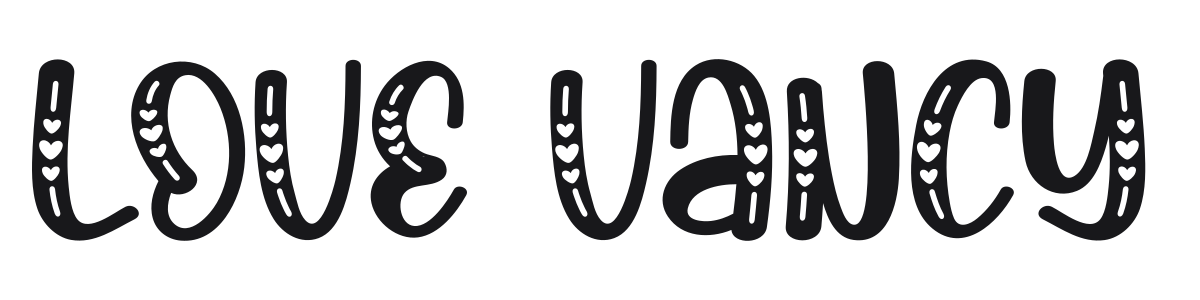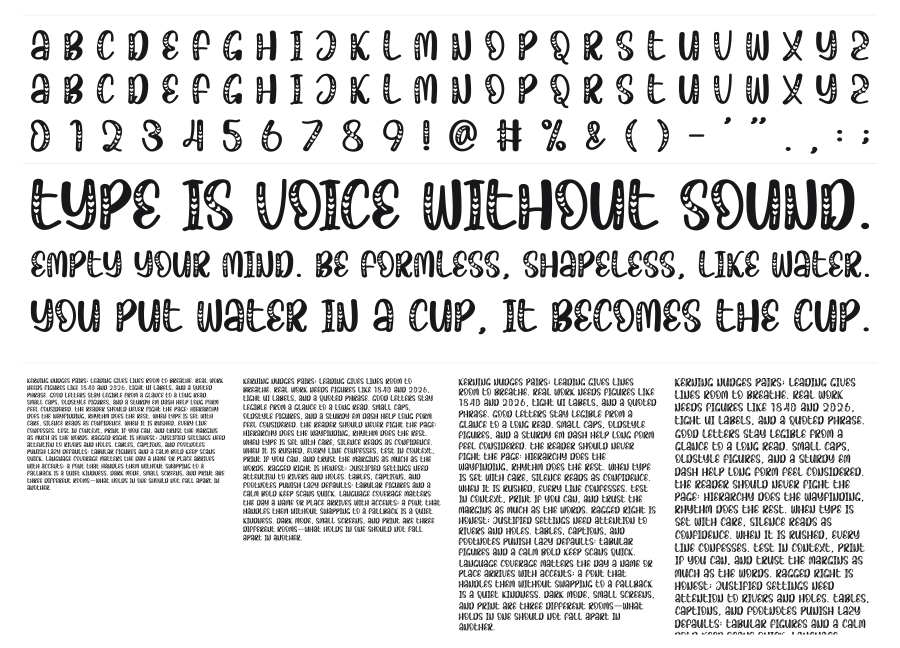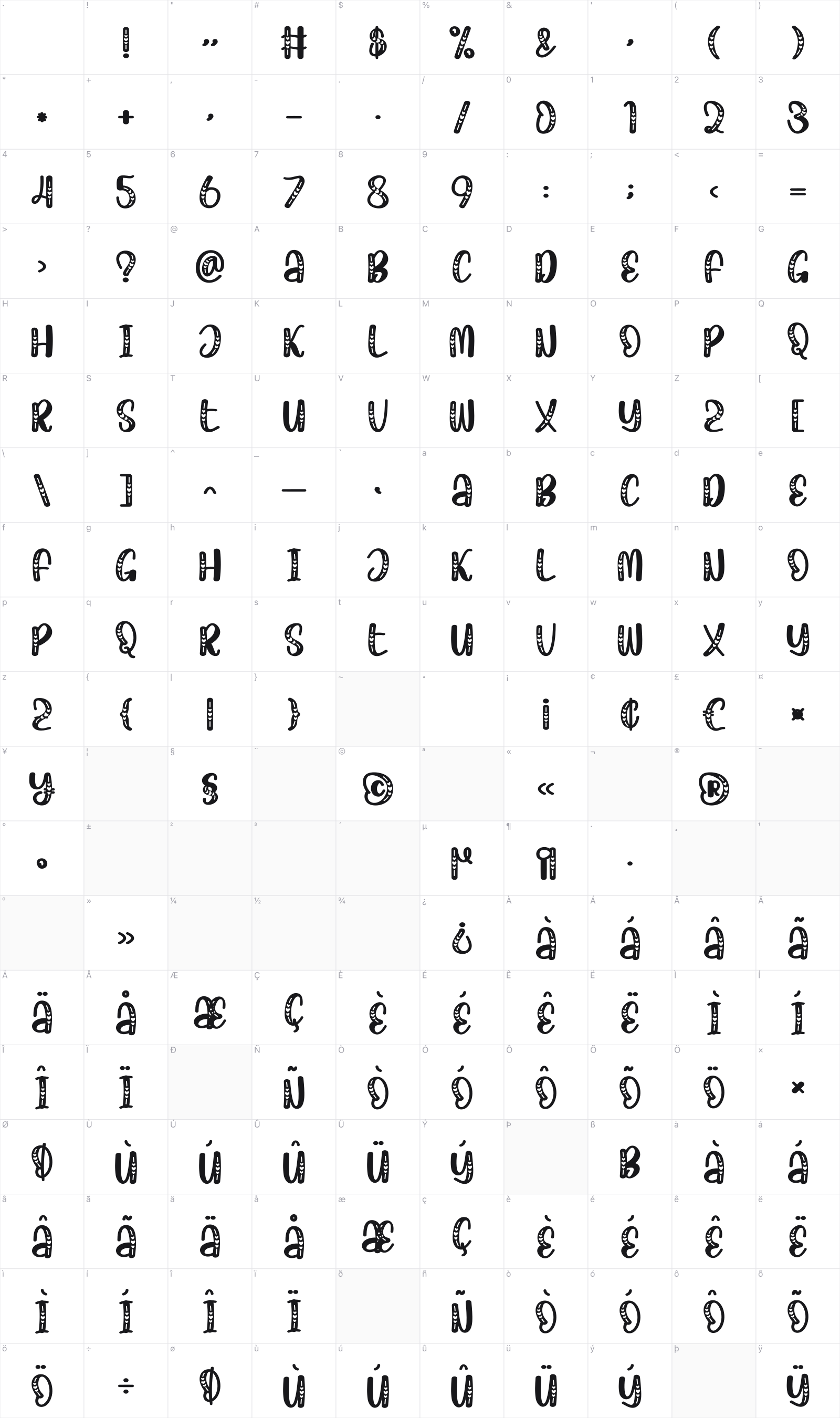
Love Vancy
Love VancyLicense is a bold novelty display font decorated with small heart cutouts embedded directly into its thick strokes. The chunky, rounded characters carry a handcrafted looseness that keeps it feeling warm rather than mechanical. Built for eye-catching headlines, wedding stationery, and social media graphics where personality matters.